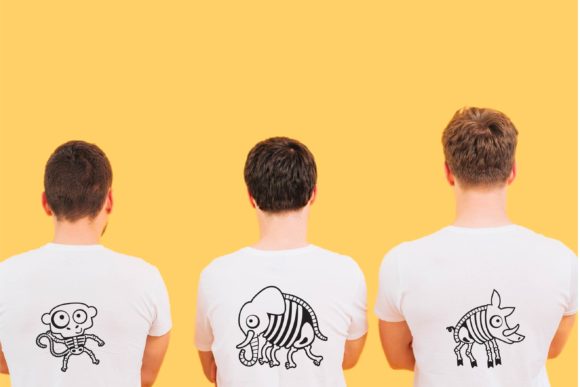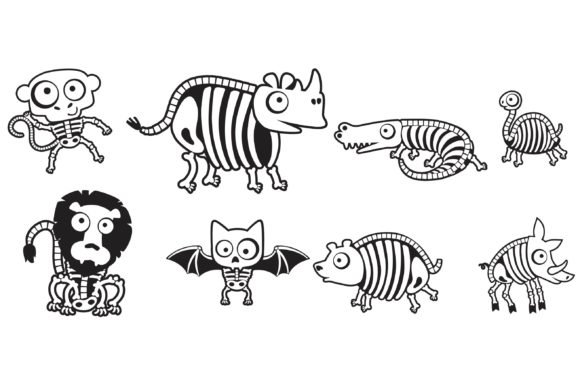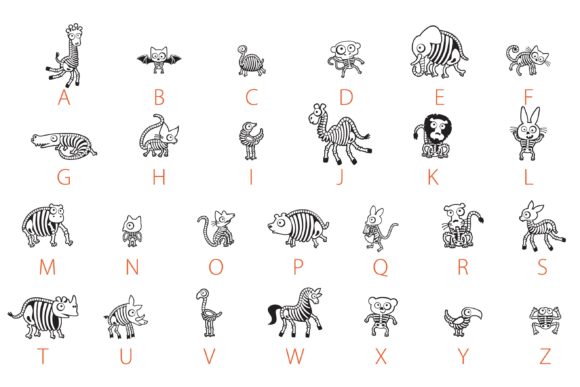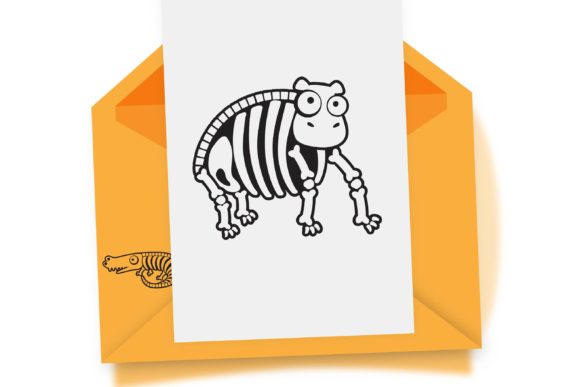
Unleash the Spooky Spirit with Haunted Zoo Font: A Delightful Dingbats Font for Halloween Crafts
Are you a designer, crafter, or DIY enthusiast looking for a unique and playful font to add a spooky touch to your Halloween projects? Look no further than the Haunted Zoo Font, a sweet and cool dingbats font that features fun animal skeletons and ghosts. This delightful font is perfect for any Halloween crafts, from party invitations and decorations to social media graphics and more.
What is Haunted Zoo Font?
Haunted Zoo Font is a dingbats font, which means it’s a type of font that features symbols and icons rather than traditional letters. This font is specifically designed to capture the spirit of Halloween, with a collection of fun and playful animal skeletons and ghosts. The font is perfect for designers and crafters who want to add a touch of whimsy and spookiness to their projects.
Key Features of Haunted Zoo Font
- Fun and playful design: The Haunted Zoo Font features a range of fun and playful animal skeletons and ghosts, including bats, cats, dogs, and more.
- Perfect for Halloween crafts: This font is specifically designed for Halloween projects, making it perfect for party invitations, decorations, social media graphics, and more.
- Versatile: This font can be used for a range of projects, from digital graphics to print materials.
Uses for Haunted Zoo Font
The Haunted Zoo Font is perfect for a range of Halloween projects, including:
- Party invitations: Create spooky and fun party invitations that will set the tone for your Halloween celebration.
- Decorations: Use the Haunted Zoo Font to create fun and spooky decorations, such as garlands, banners, and signs.
- Social media graphics: Add a touch of Halloween spirit to your social media graphics, including Facebook posts, Instagram stories, and more.
- DIY crafts: Use the Haunted Zoo Font to create fun and spooky DIY crafts, such as Halloween cards, gift tags, and more.
Tips for Using Haunted Zoo Font
Here are a few tips for using the Haunted Zoo Font:
- Experiment with different sizes and colors: Play around with different sizes and colors to find the perfect combination for your project.
- Combine with other fonts: Combine the Haunted Zoo Font with other fonts to create a unique and interesting look.
- Use for headlines and titles: The Haunted Zoo Font is perfect for headlines and titles, adding a touch of spooky whimsy to your project.
The Haunted Zoo Font is a fun and playful dingbats font that’s perfect for any Halloween crafts. With its sweet and cool design, this font is sure to add a touch of spooky spirit to your projects. Whether you’re a designer, crafter, or DIY enthusiast, the Haunted Zoo Font is a must-have for any Halloween project. So why wait? Download the Haunted Zoo Font today and get creative with your Halloween crafts!